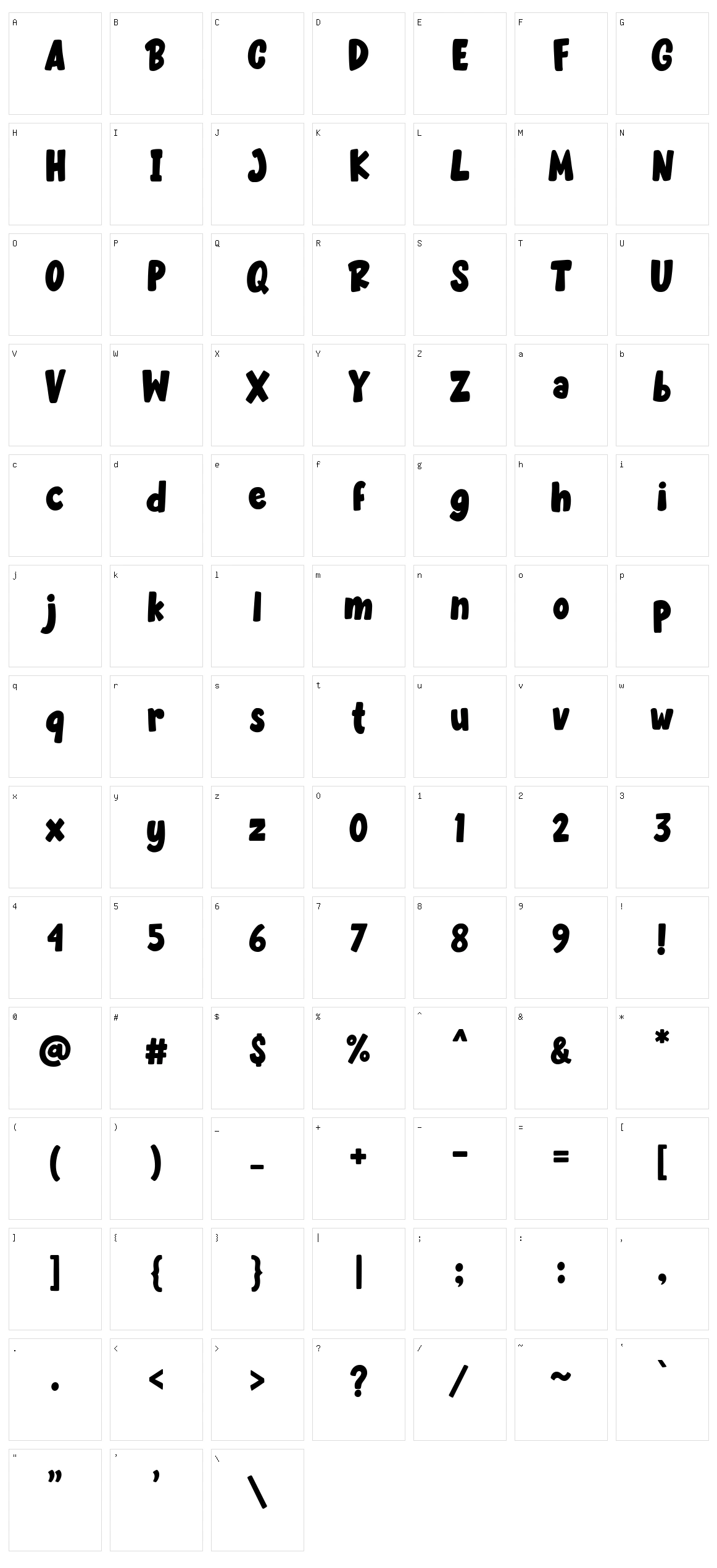
The free font Becak is carefully designed by Weape Studio, showcasing a thoughtful balance of creativity and usability and falls under the Cartoon font style. When you download the ZIP file, it contains only 107.39 KB of font files, making it lightweight and quick to download. Please review the license details below to understand permitted usage and distribution rights. If license information is not available, we recommend using this font for personal projects only or contacting the author directly for commercial usage permissions.